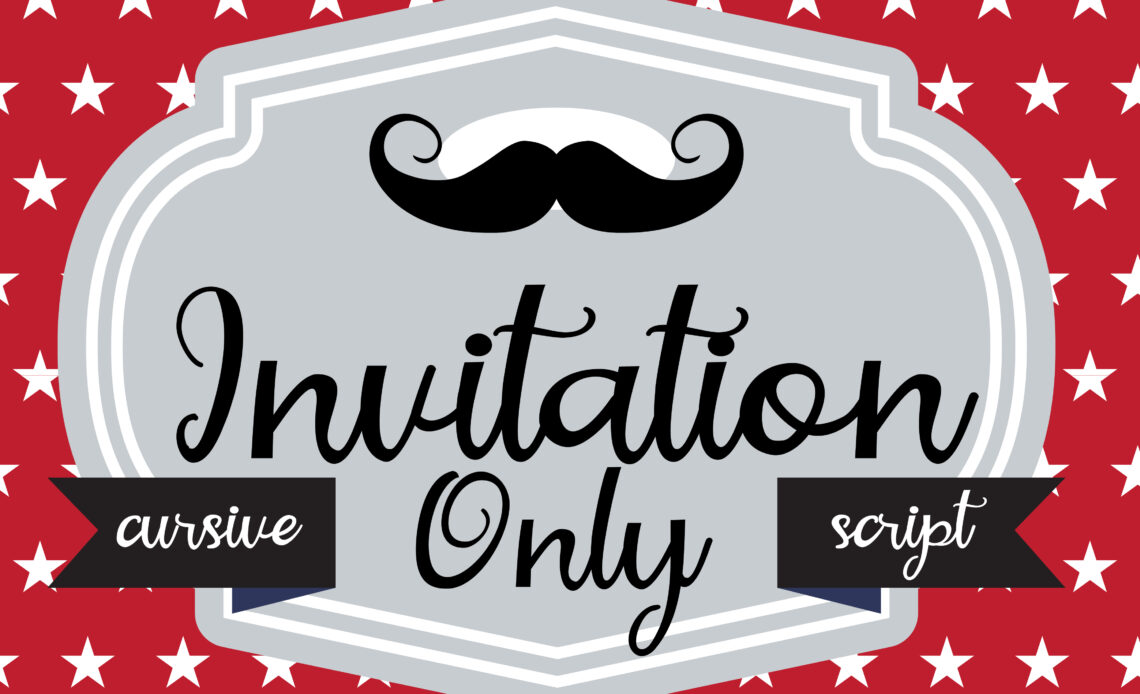
Introducing Invitation Only Font, the captivating script font that exudes elegance and a touch of playfulness. This font family is the brainchild of Illustration Ink, a renowned designer known for creating fonts that resonate with the modern user.
Invitation Only Font boasts a distinctive formal uppercase, which lends a touch of sophistication to your designs. Yet, beneath this refined exterior lies a casual undertone that adds a touch of approachability, making it suitable for a wide range of projects. Whether you're crafting elegant invitations, whimsical branding, or heartfelt personal messages, Invitation Only Font will infuse your creations with a timeless charm.
This versatile font invites you to explore a world of creative possibilities. Its friendly and relaxed vibe makes it perfect for adding a touch of warmth and personality to any project. Whether you're an experienced designer or just starting out, Invitation Only Font is the perfect choice to elevate your designs.
Immerse yourself in the world of Invitation Only Font and discover the endless possibilities it offers. Let your creativity soar as you craft designs that are both captivating and effortlessly stylish.